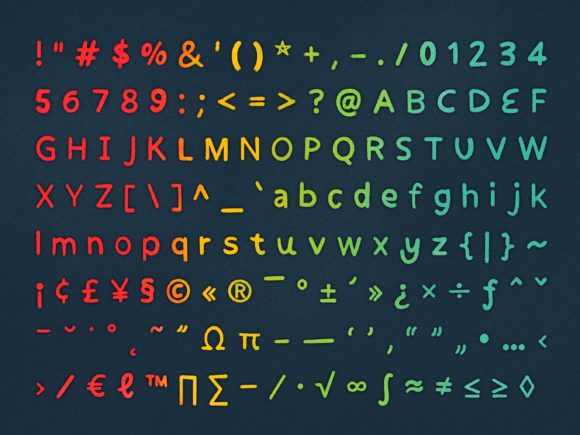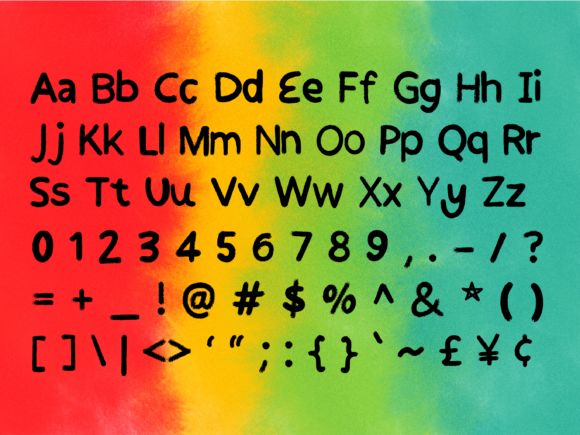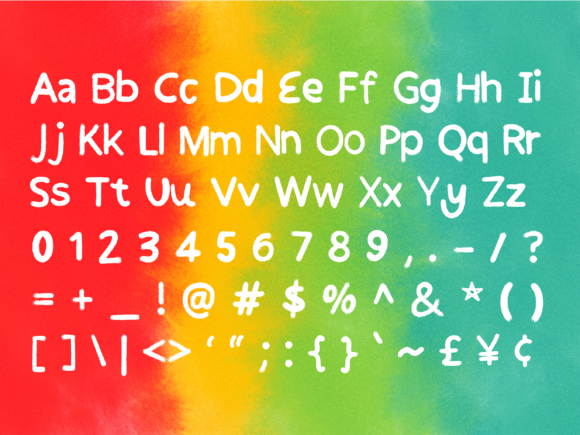
Discover the Secret to Captivating Designs: Introducing Airheads Font
Have you ever stumbled upon a design that just stops you in your tracks, making you feel like you’re in a world of wonder? For designers, those moments are a treasure trove of inspiration. As you gaze at the beautifully crafted typography, you start to wonder what makes it so special. For me, that moment came when I discovered the Airheads Font – a simple, yet striking, handwritten font that’s perfect for packaging products, invitation cards, flyers, and event posters.
With its beautiful and balanced character, Airheads Font is a valuable addition to any designer’s toolkit. Its versatility makes it an ideal choice for a wide range of projects, from mockups to event posters. Whether you’re a seasoned designer or just starting out, the Airheads Font is sure to bring a touch of high-quality vibes to your work.
Airheads Font Key Features
- Font Family: Airheads Font is a sans-serif font family designed to mimic the iconic logo of the Airheads candy brand.
- Size: Airheads Font comes in 7 different font weights, ranging from Light to Extra Bold, providing flexibility for various design applications.
- Unique Characteristics: The font features a distinctive, rounded edge design and a bold, vibrant aesthetic that is reminiscent of the Airheads brand.
Designer Review: Airheads Font
When I first laid eyes on the Airheads font, I was immediately drawn to its playful, retro vibe ✨. The font’s distinctive shape and line variation give it a quirky, hand-drawn feel that’s perfect for projects that need a bit of whimsy. The Airheads font also does a great job of scaling up and down, making it a versatile choice for titles and body text.
- Unique, hand-drawn feel ✨
- Scalable, works well for titles and body text
- Perfect for projects that need a playful, retro vibe
However, I do have a few reservations about the Airheads font. While it’s great for casual, creative projects, it may not be the best choice for formal or professional work ⚠️. Additionally, some of the letterforms can be a bit too irregular, which may make them difficult to read at smaller sizes.
- Not suitable for formal or professional work ⚠️
- May be difficult to read at smaller sizes due to irregular letterforms
Overall, I think the Airheads font is a fun and creative choice, but it’s not a one-size-fits-all solution. If you’re looking for a font that’s perfect for casual, creative projects, Airheads is a great option. Just be aware of its limitations and use it accordingly.
For the best results, use Airheads Font in bold and bright colors to create a fun and playful design.